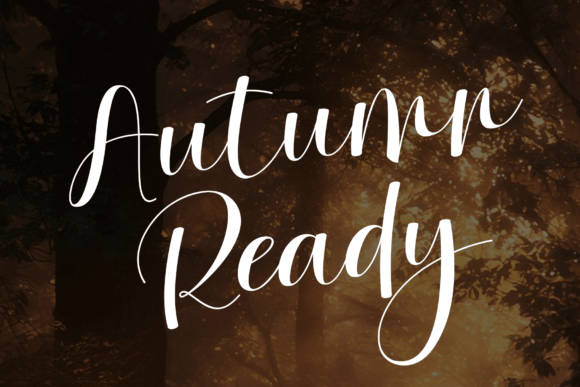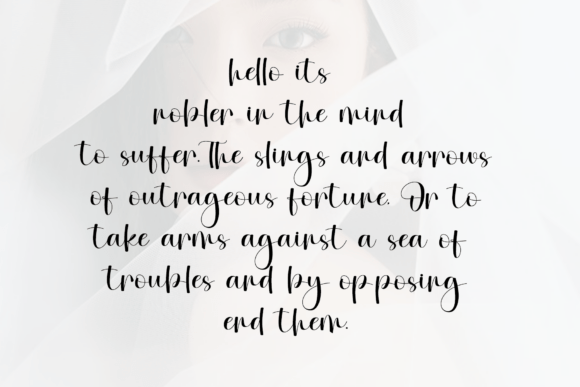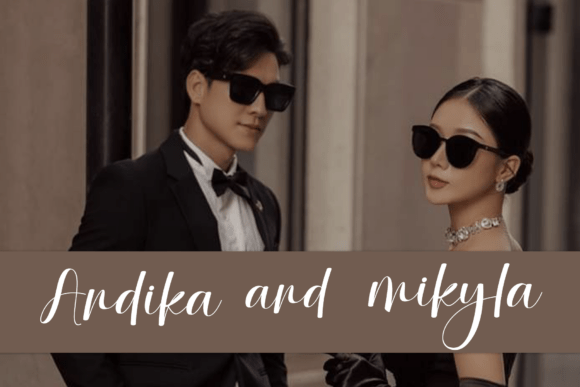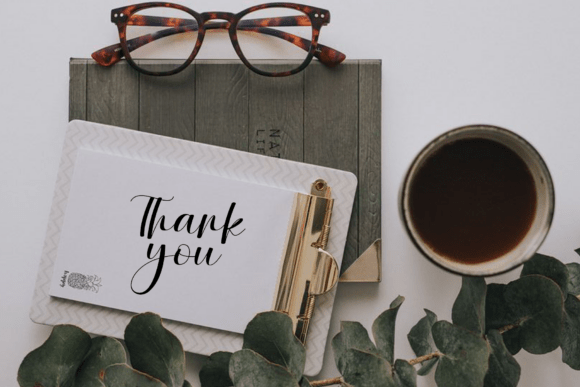
Introduction to Ringtone Styling Font
Ringtone Styling is a lovely and timeless handwritten font.
Key Features of Ringtone Styling Font
Why Choose Ringtone Styling Font?
Ringtone Styling Font offers exceptional quality and versatility, making it a valuable addition to your design toolkit. Whether you’re creating for personal projects or commercial use, Ringtone Styling Font delivers professional results.